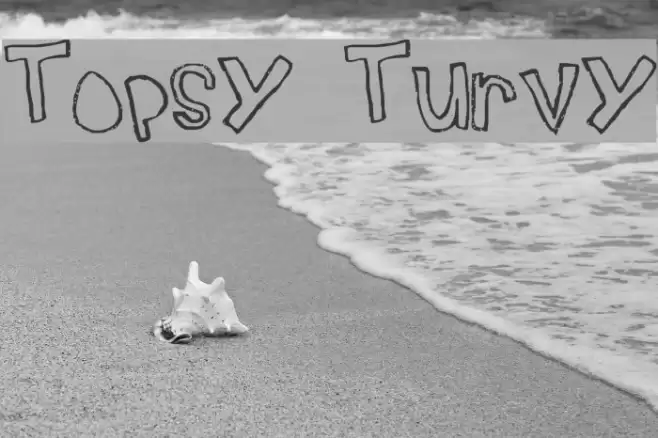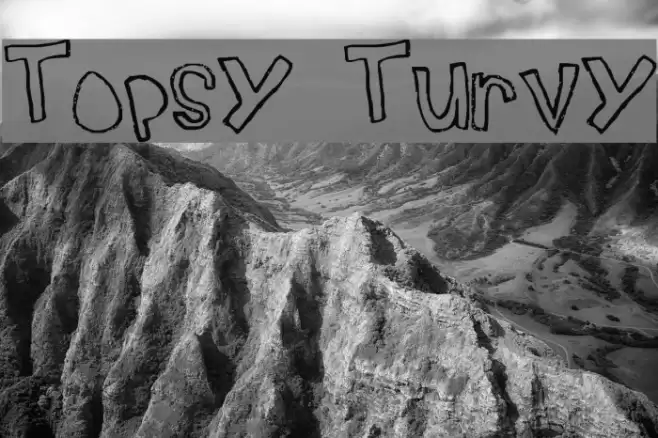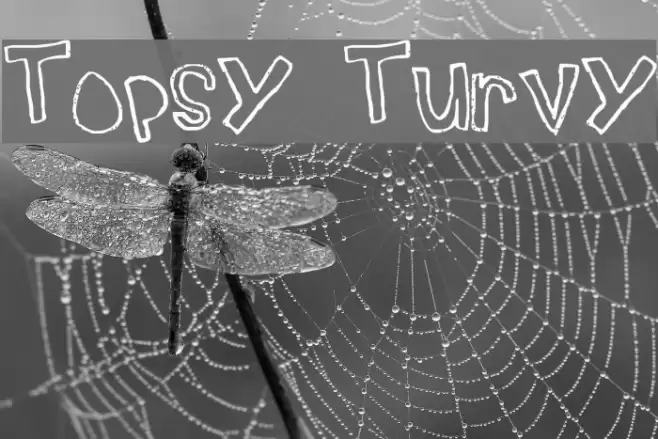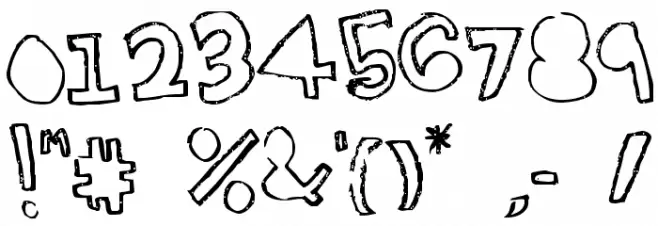
Topsy Turvy Font
Topsy Turvy Description
This playful and whimsical font features a hand-drawn, sketch-like appearance with uneven lines and a casual style. The characters are bold and slightly irregular, giving them a lively and dynamic feel. The uppercase and lowercase letters maintain a consistent, quirky design, while the numbers and special characters complement the overall aesthetic. The font's unique charm makes it stand out, perfect for projects that require a fun and informal touch.
A playful, hand-drawn font with a sketch-like, whimsical style from Cartoon fonts.
- Overall Style: Whimsical